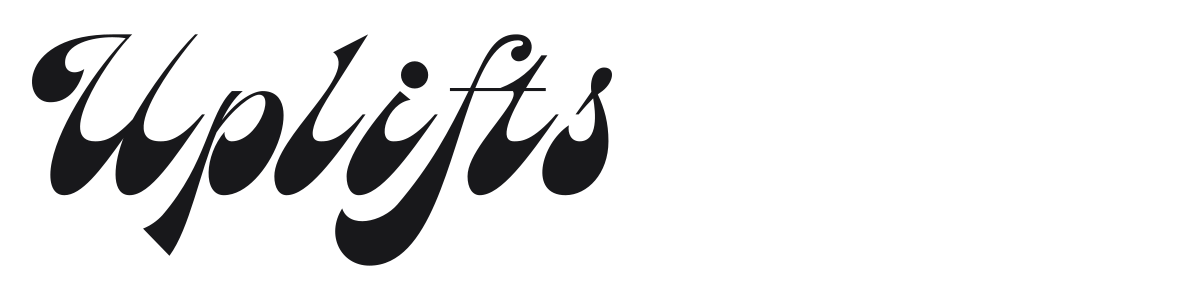
Uplifts
Uplifts is a heavy brush script with a swirling, groovy character rooted in late-1960s and 70s lettering culture. Thick-to-thin stroke contrast is extreme, with bold swelling stems that taper into hairline curves and looping terminals. It brings kinetic energy to posters, album covers, packaging, and any headline that needs to feel alive.